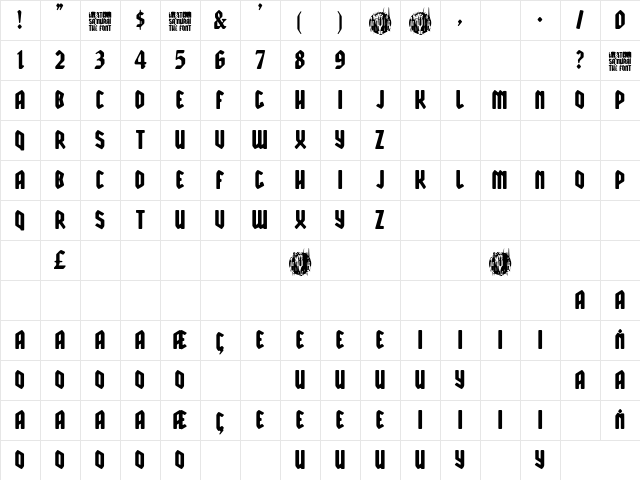
Western Samurai Regular
Designer: Woodcutter Manero
Design Context for Western Samurai
Western Samurai echoes the hand-painted signage and woodblock typography of the American frontier, with a warm, rugged personality.
Font Pairing: Combine Western Samurai with a simple slab or neutral sans - period-accurate companions reinforce the vintage feel without competing for attention.
Pro Tip: Use Western Samurai for short, impactful bursts of text - it shines in poster headlines and product names rather than extended copy.